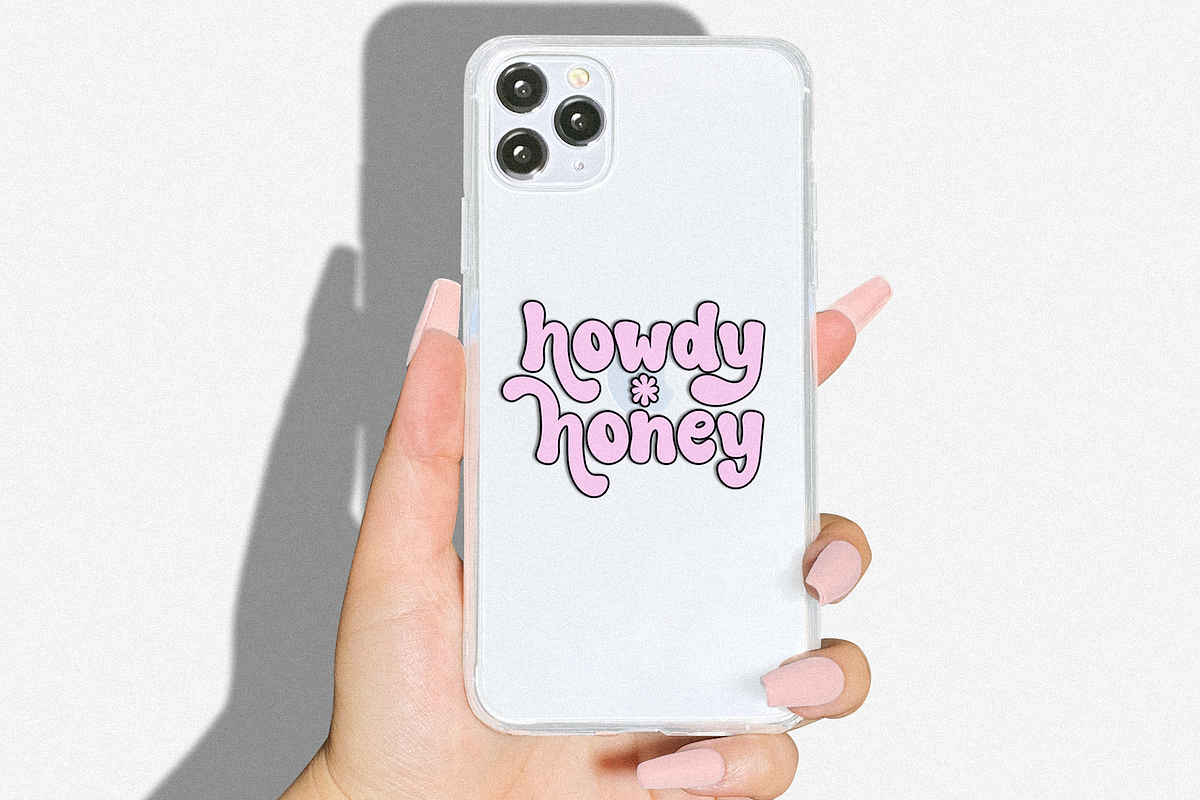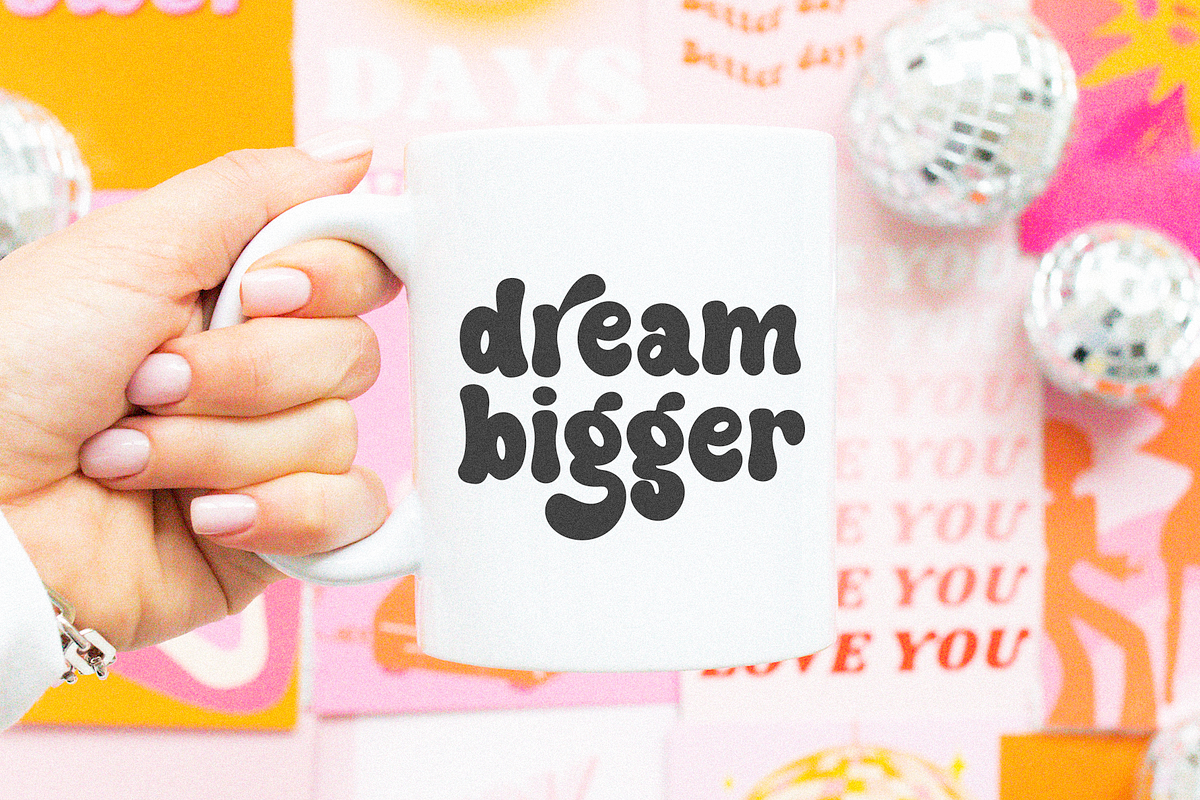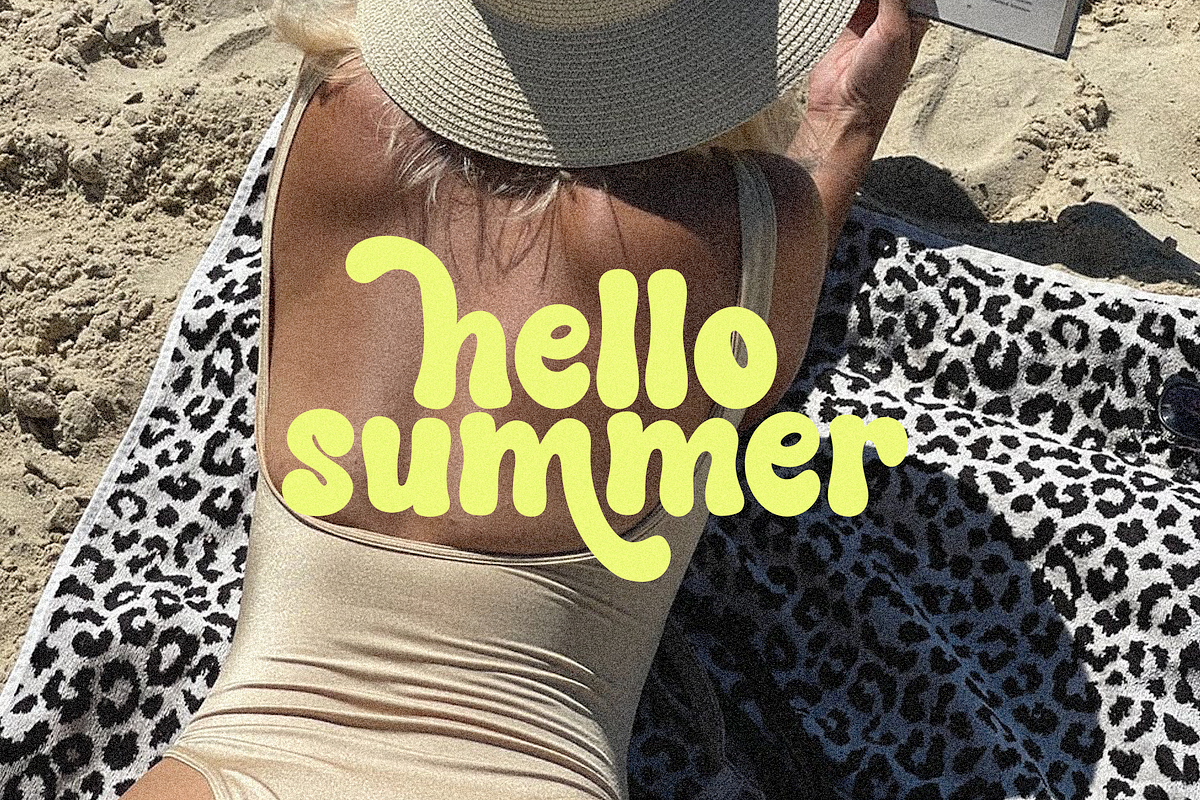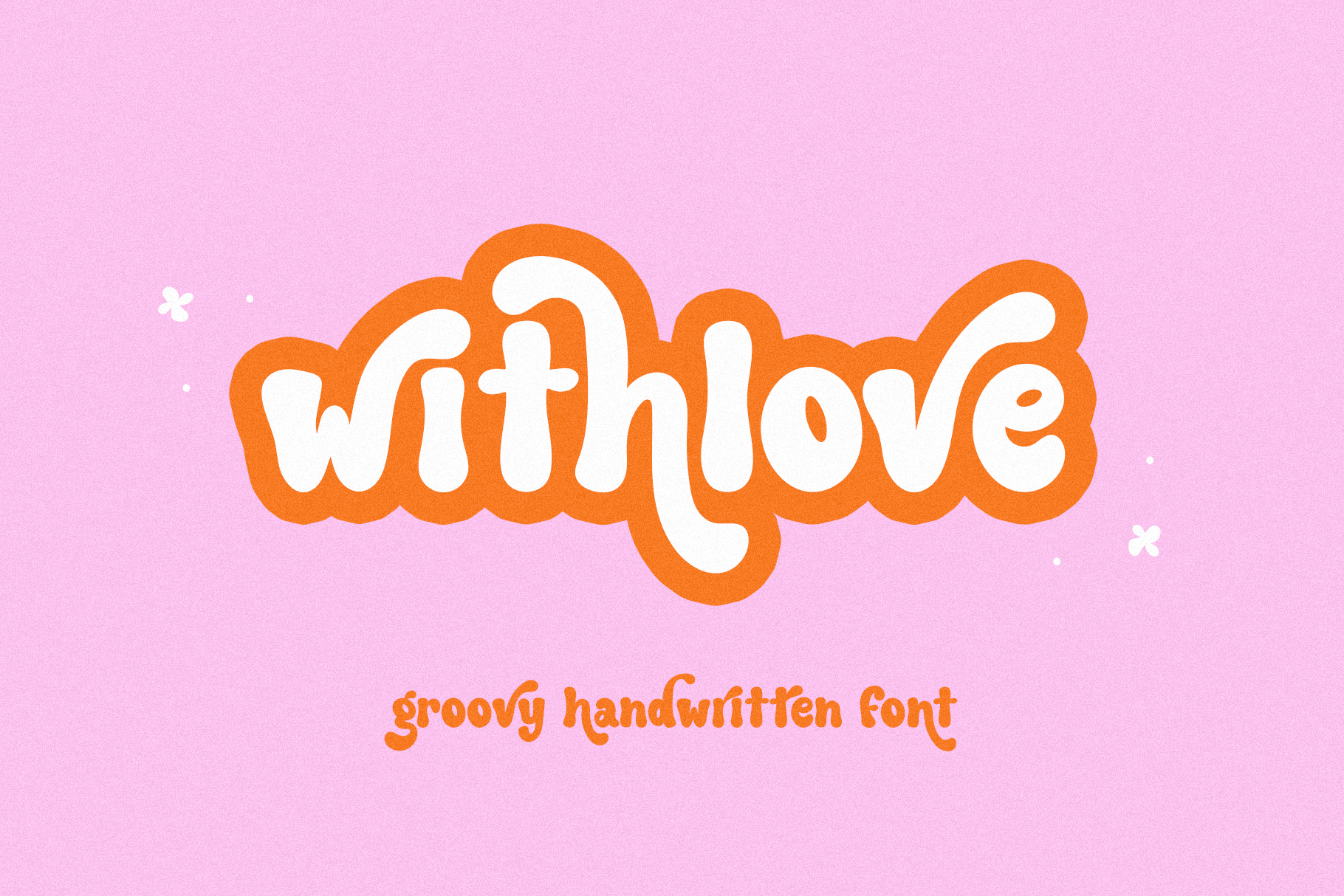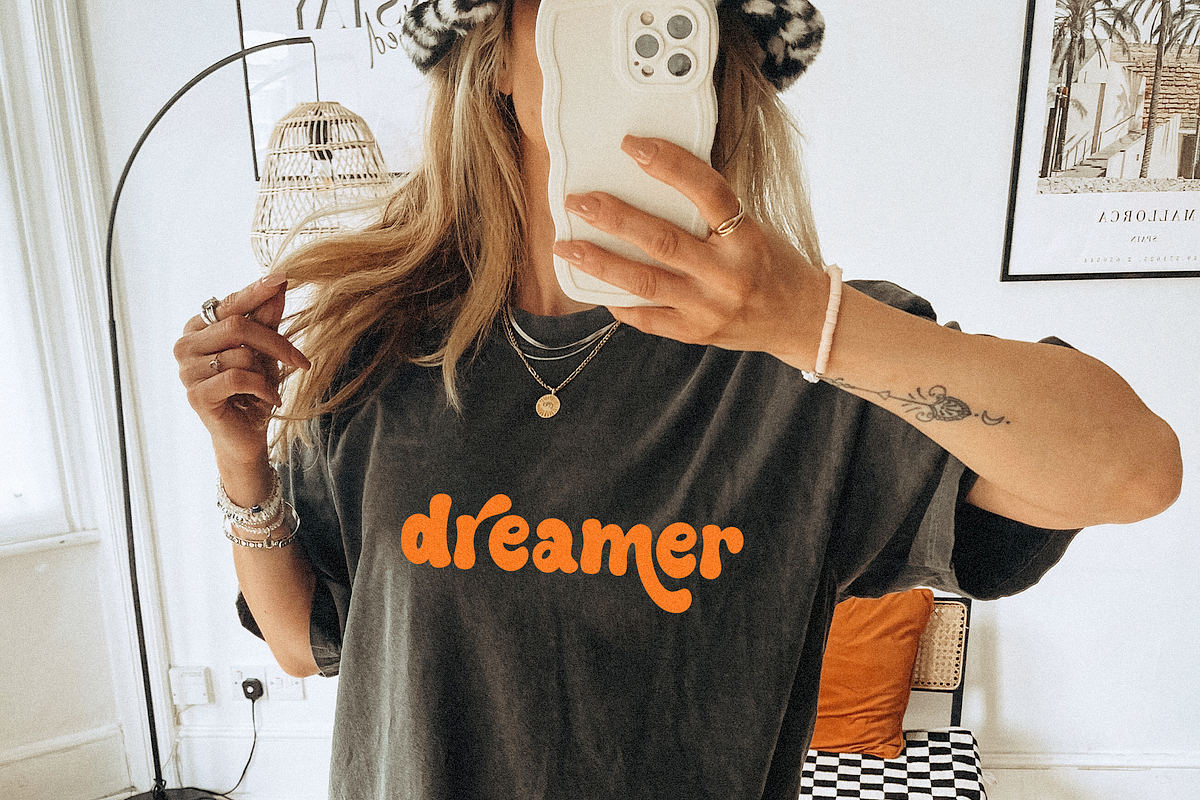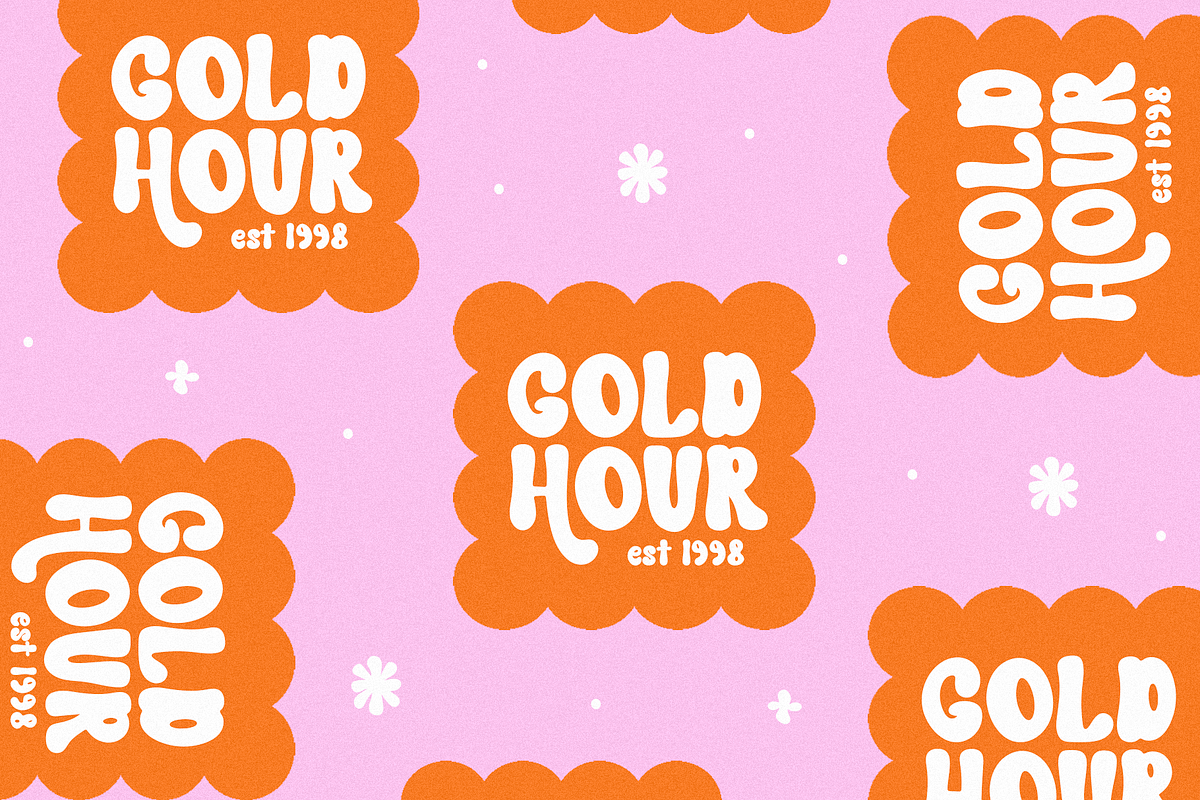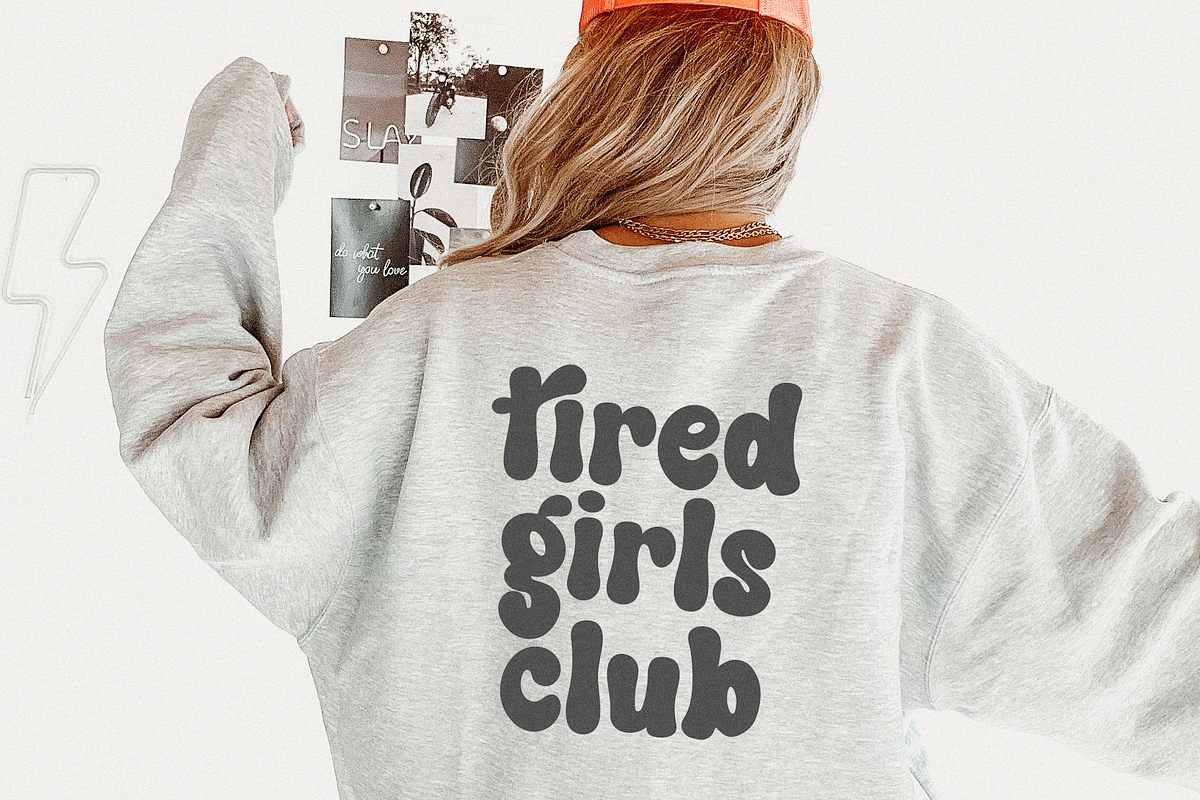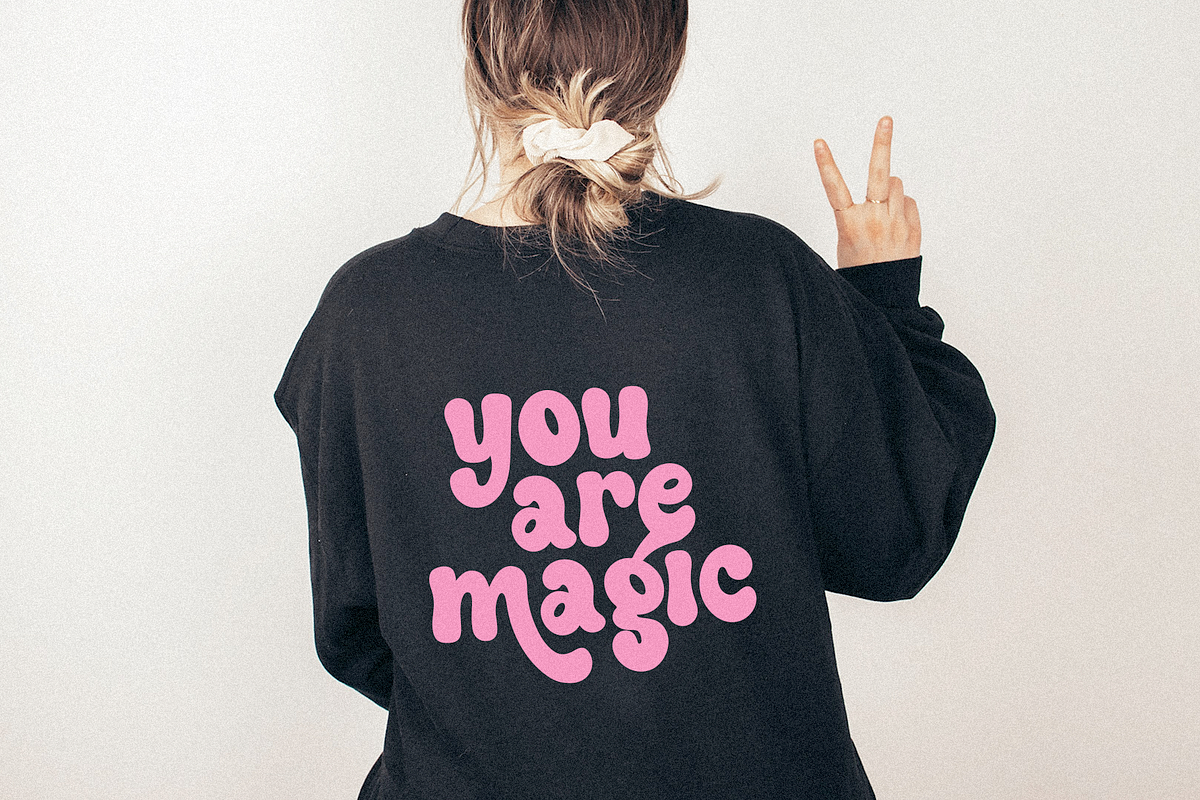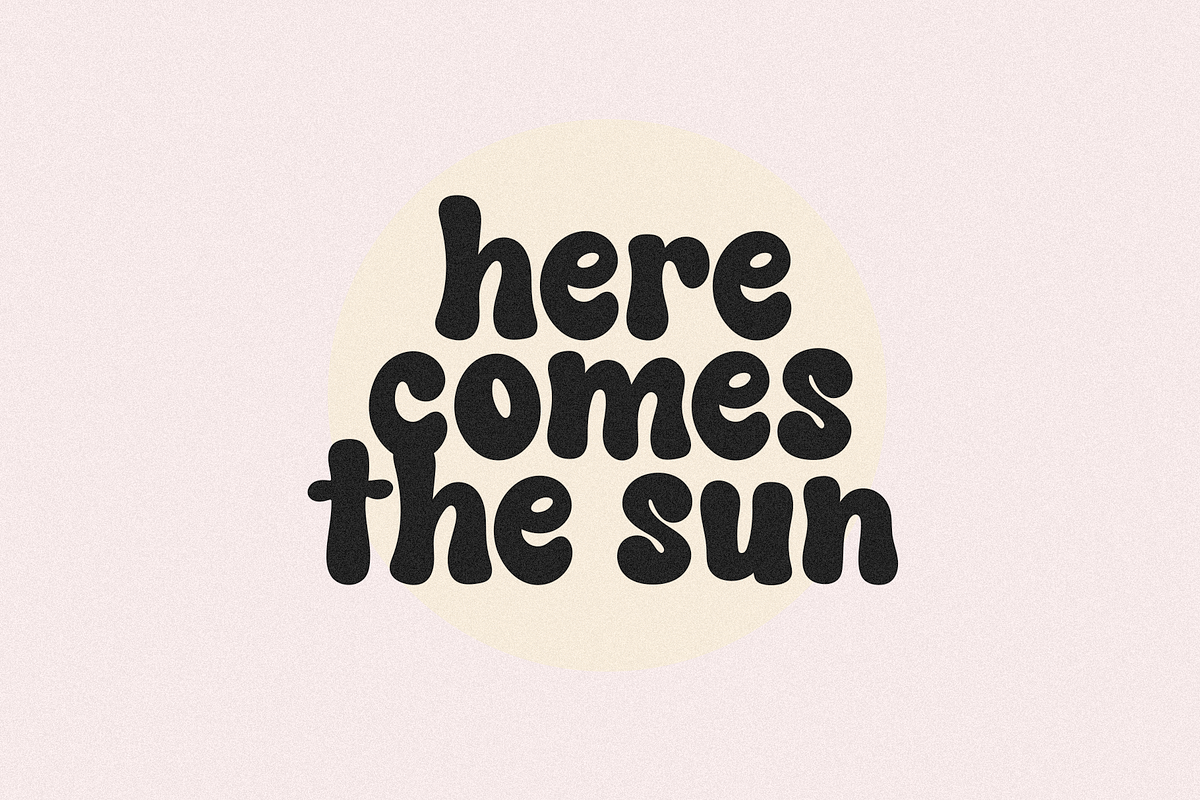
With Love | Retro Swash Serif Font
With Love is a hand-drawn retro font.
This font has a modern boho + groovy vibe! With Love is a great choice for branding, logos, stickers, svg designs, shirts, social media, advertisements, product packaging and more!